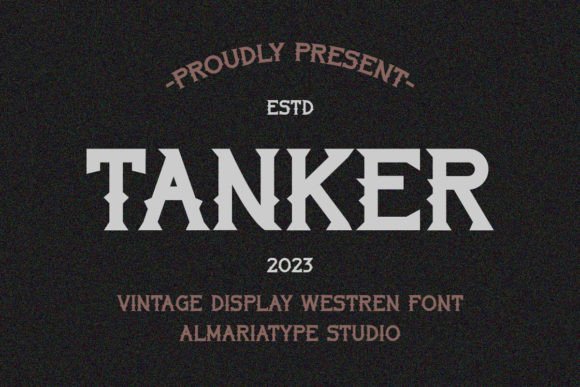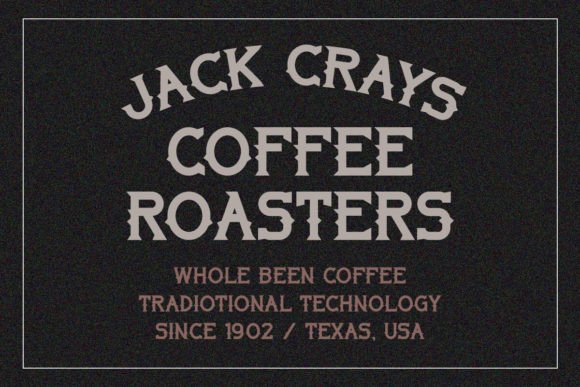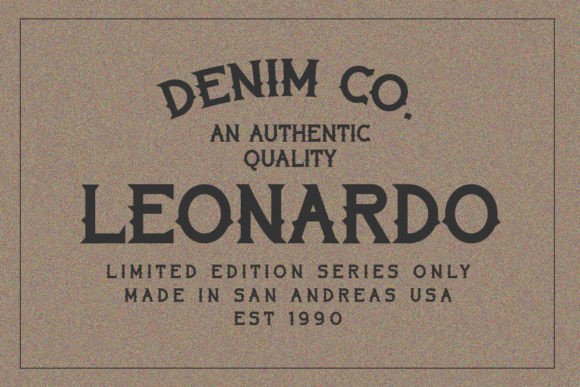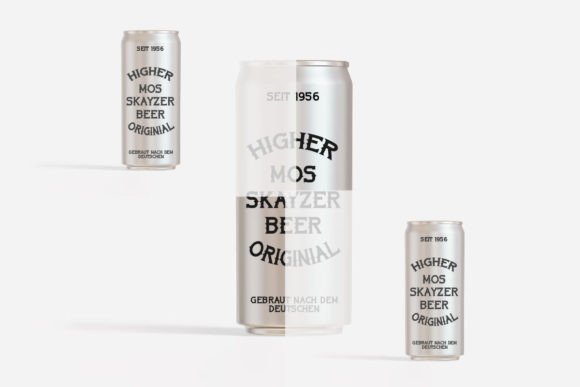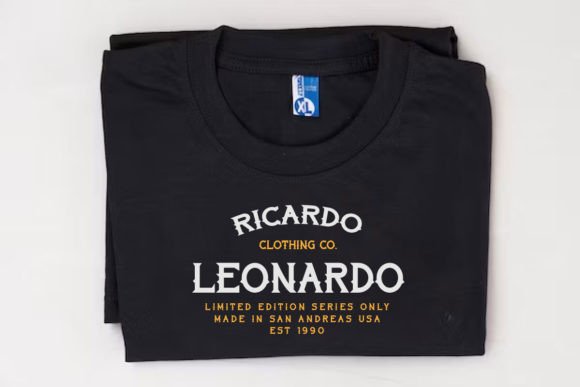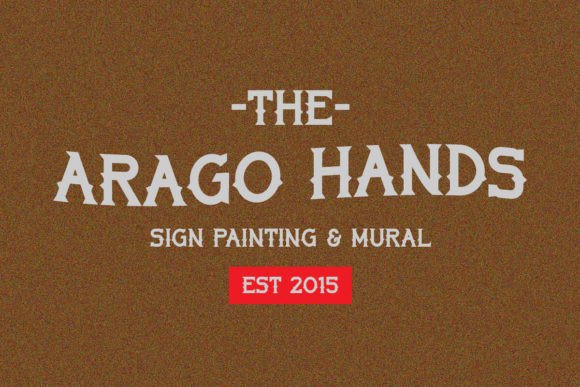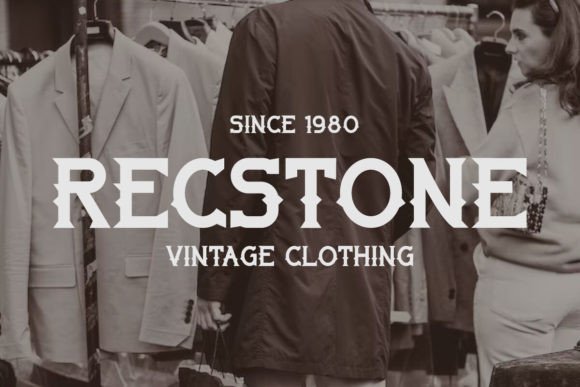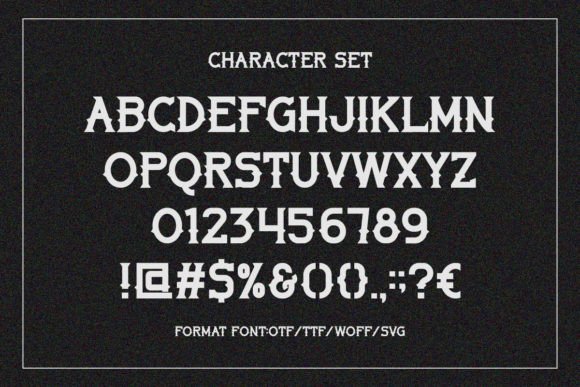
Tanker Font
Tanker is a bold and stunning display font with a vintage western style. It is suitable for perfecting your creative projects such as t-shirts, labels, logos, web, branding, business, book covers, magazines, pamphlets, flyers, music albums, vinyl, and many other ideas.